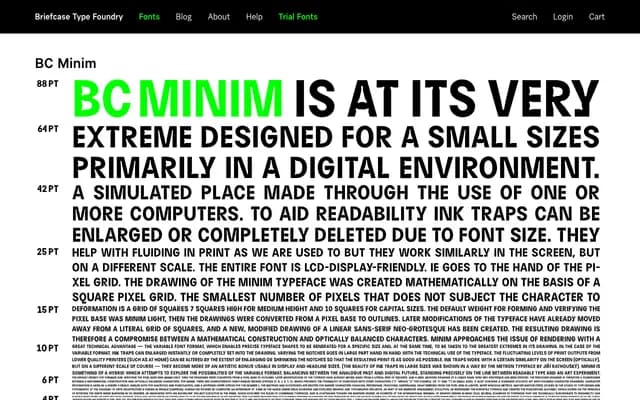
A minimal geometric sans from Briefcase Type Foundry, with little detail available from the page scraped.
BC Minim is a geometric sans-serif from Briefcase Type Foundry. The page content available was too sparse to confirm full weight range, language support or stylistic detail. Further information should be sourced directly from the foundry's product page.
The name and foundry context suggest a minimal geometric sans-serif; insufficient page content to confirm further stylistic detail.